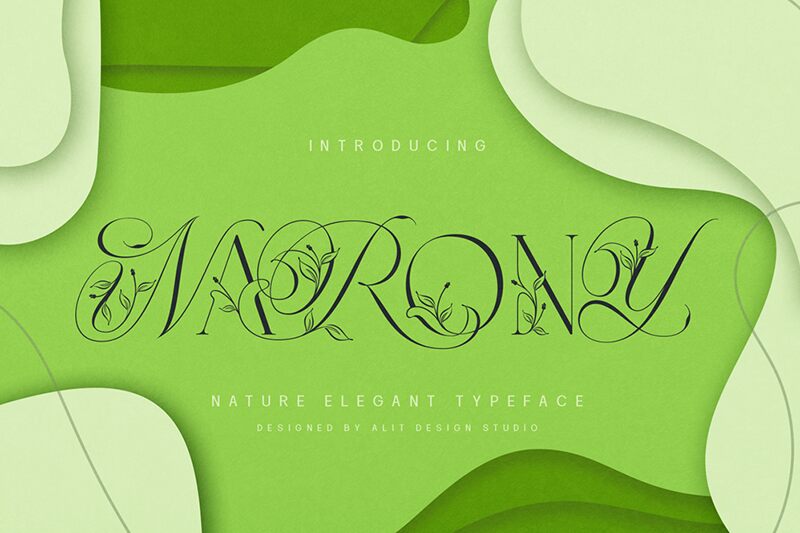
Narony font by Alit Design is a decorative font drawing inspiration from nature with its intricate design. The typeface has elegant lines and curves, artistic shapes and refined accents, and finished with creative patterns. The font brings a touch of modernism and a luxurious feeling to any title or text.
An artistic audience will notice this font straight away as it can be immediately used in signage, advertising, branding, website design, landing pages, infographics, and much more. Additionally, trying it out in book covers, fan covers, and festival posters would be a smart idea.